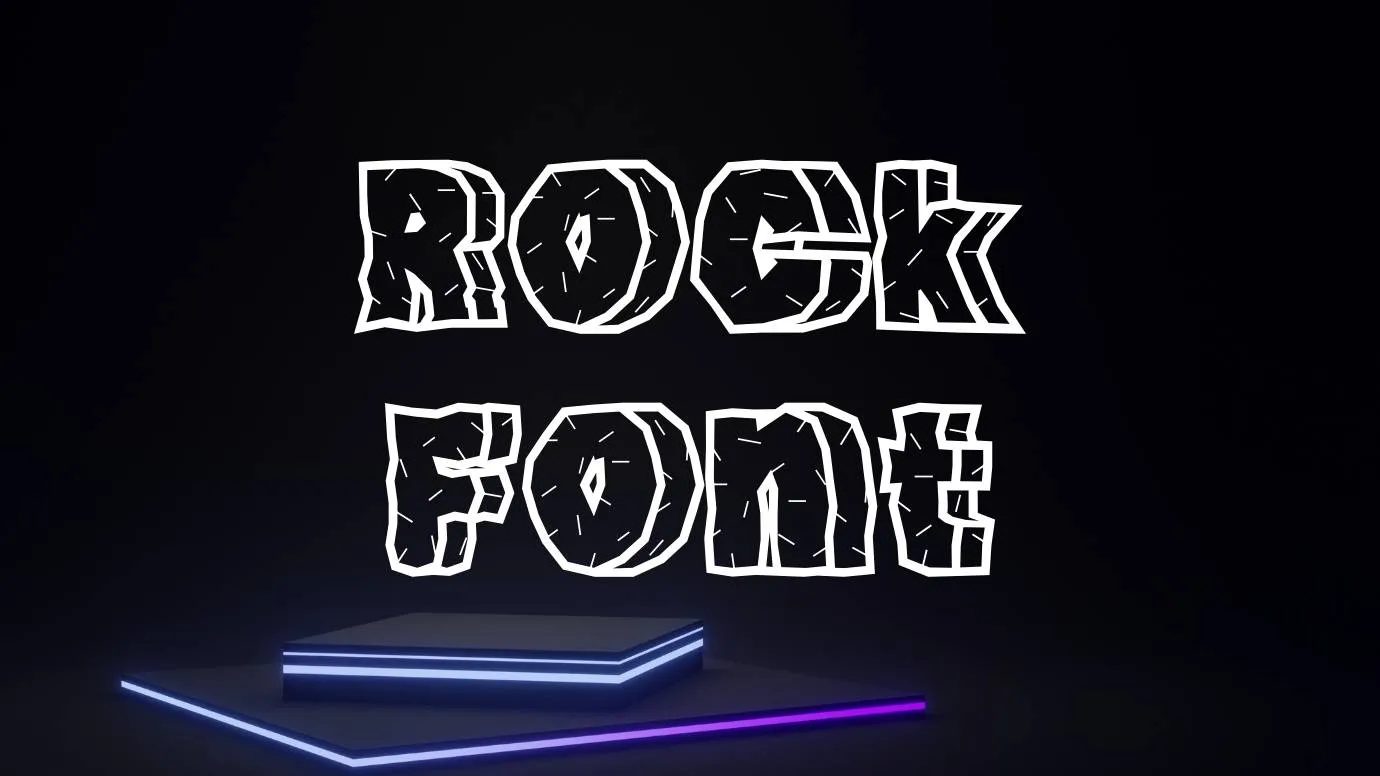
Rock Font Family is categorized under the fancy typeface genre. The creation and release of this typeface were handled by Gaut Fonts. The design initiative was first undertaken by the designer.
This typeface comes in 6 unique styles. This amazing font family contains two basic fonts including Regular and Bold. This amazing typeface is also best for pairing with another cartoon font known as action jackson font.
| Name | Rock Font |
| Type | 3D |
| Designer | Gaut Fonts |